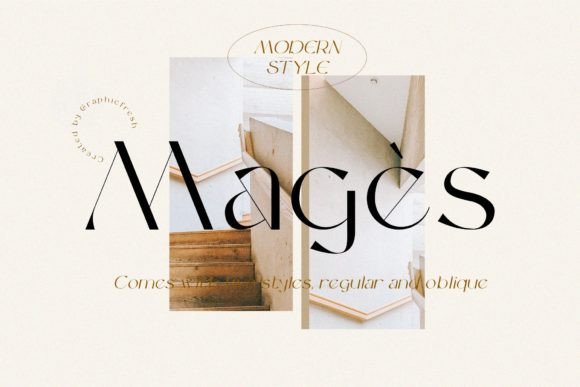
Introducing Magès Font, the epitome of sophistication and style for your digital creations! This captivating serif font, meticulously crafted by the skilled designers at Graphicfresh, exudes an irresistible blend of modern allure and timeless elegance.
Indulge in the boundless possibilities that Magès Font presents. Its versatile character effortlessly complements an array of design styles, making it the perfect choice for discerning individuals seeking to elevate their projects. Whether you're crafting captivating headlines, alluring body copy, or eye-catching marketing materials, this font will leave an unforgettable impression.
Experience the allure of a font that embodies both modernity and sophistication. Magès Font's meticulously crafted curves and graceful lines dance across the screen, creating an aesthetic masterpiece. Its versatility empowers you to infuse a touch of chic into any design, transforming ordinary words into extraordinary expressions.
As you immerse yourself in the world of Magès Font, you'll discover a treasure trove of creative opportunities. Its undeniable charm will captivate your audience, inviting them to delve deeper into your written content. From fashion blogs and lifestyle magazines to captivating social media posts, Magès Font will elevate your words and make your message truly unforgettable.
Don't settle for ordinary fonts that blend into the background. Embrace the power of Magès Font and let your words shine with distinction. Its timeless appeal and undeniable charisma will set your projects apart, leaving a lasting impact on every reader who encounters them.
Unlock the full potential of your digital creations with Magès Font. As you journey through its enchanting typographic landscape, you'll discover a world of endless possibilities where style, sophistication, and creativity converge.